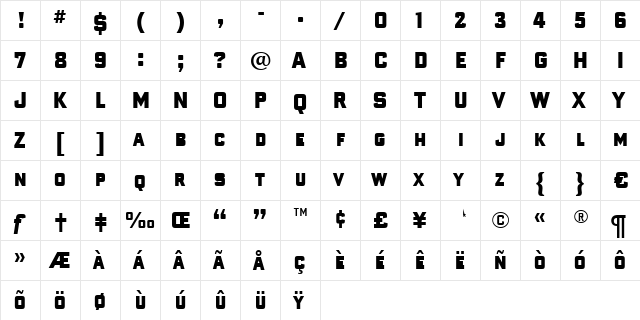
Banque Gothique RR Extra Bold Ext Cond Regular Font Preview
Design Context for Banque Gothique RR Extra Bold Ext Cond Typeface
Banque Gothique RR Extra Bold Ext Cond is a composed and adaptable typeface that performs quietly and consistently across a wide range of design contexts. The heavy weight commands attention and anchors typographic hierarchies. Its narrow stance lets it pack a punch even in space-constrained designs.